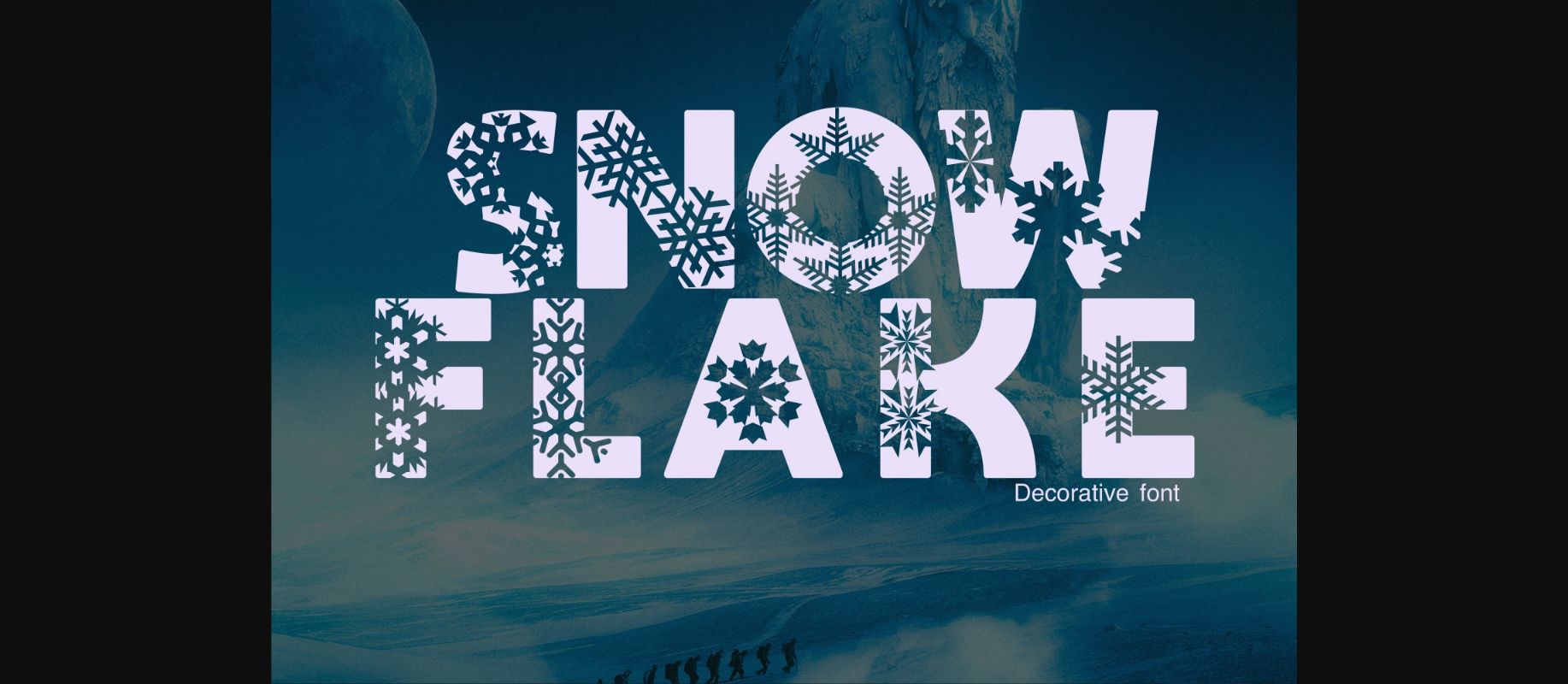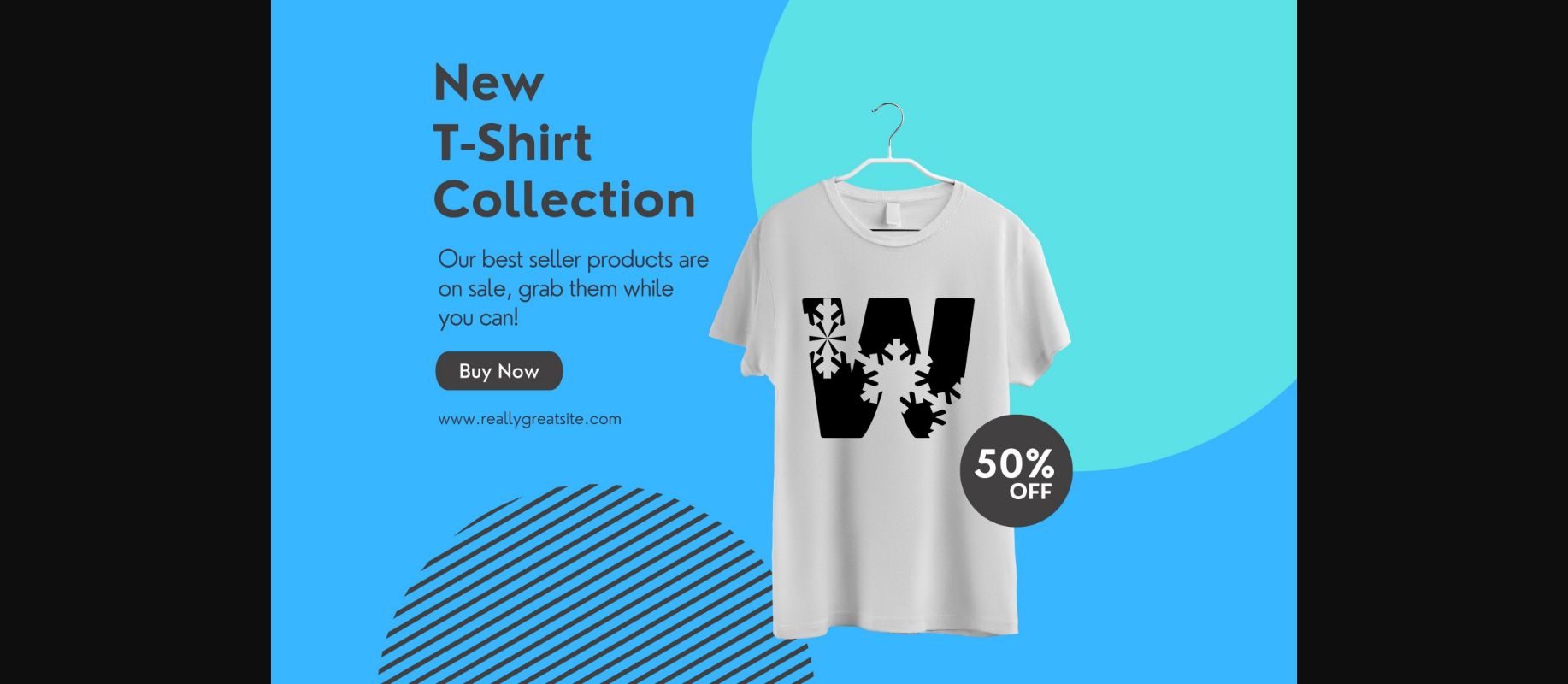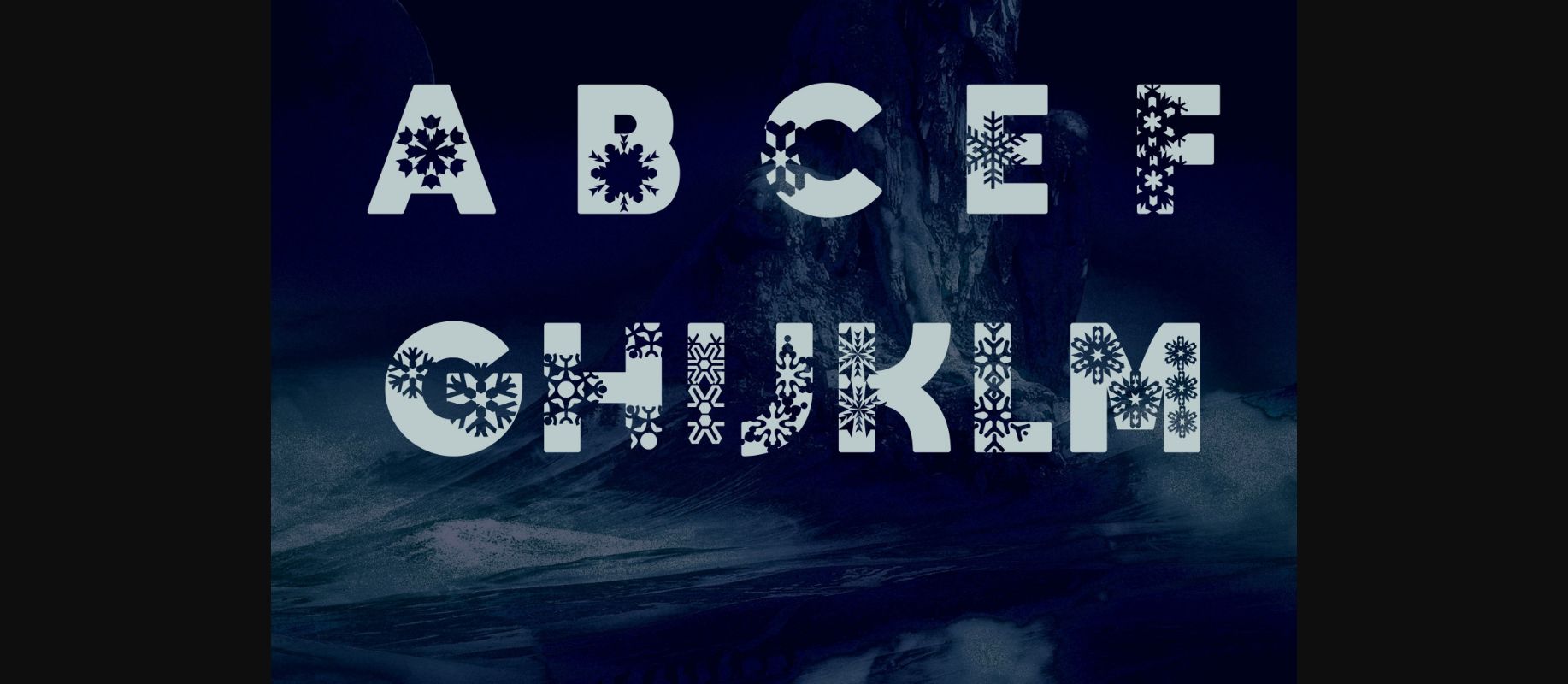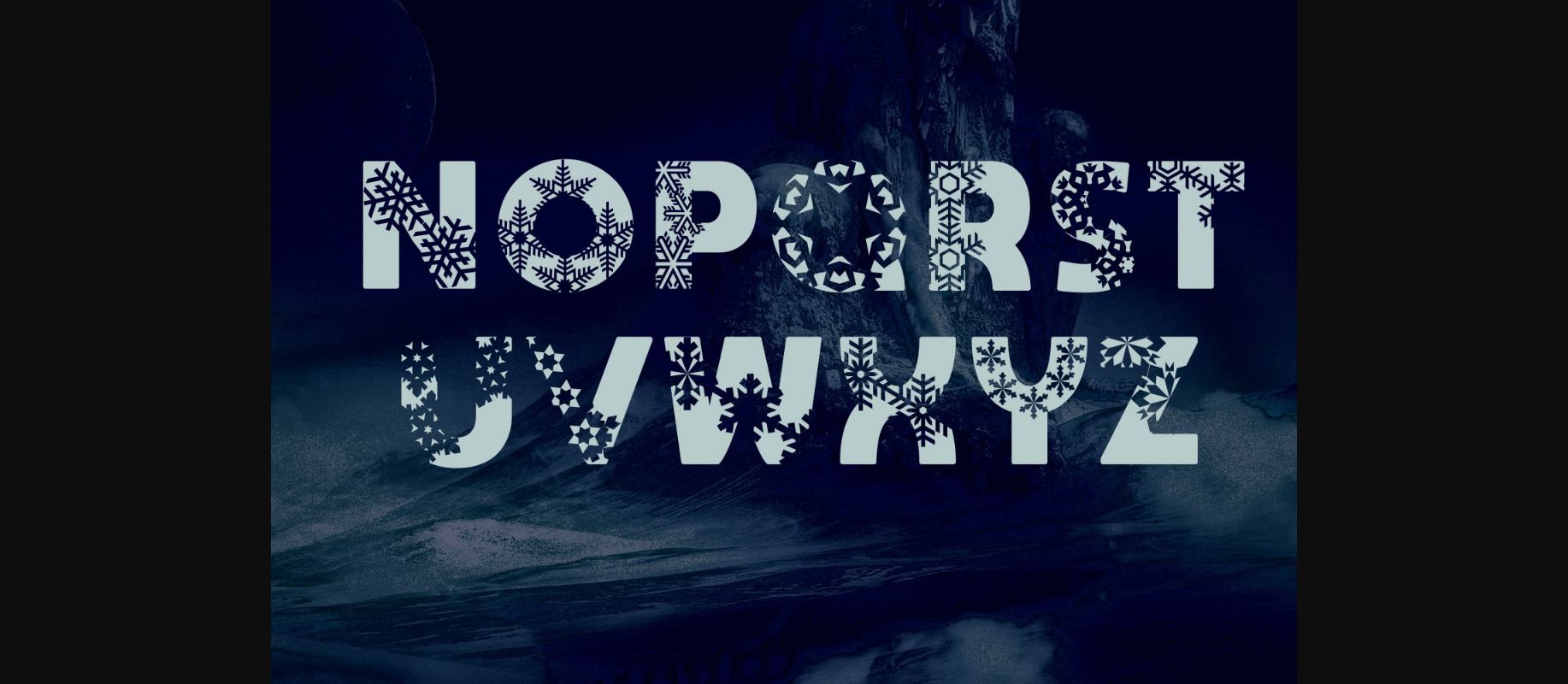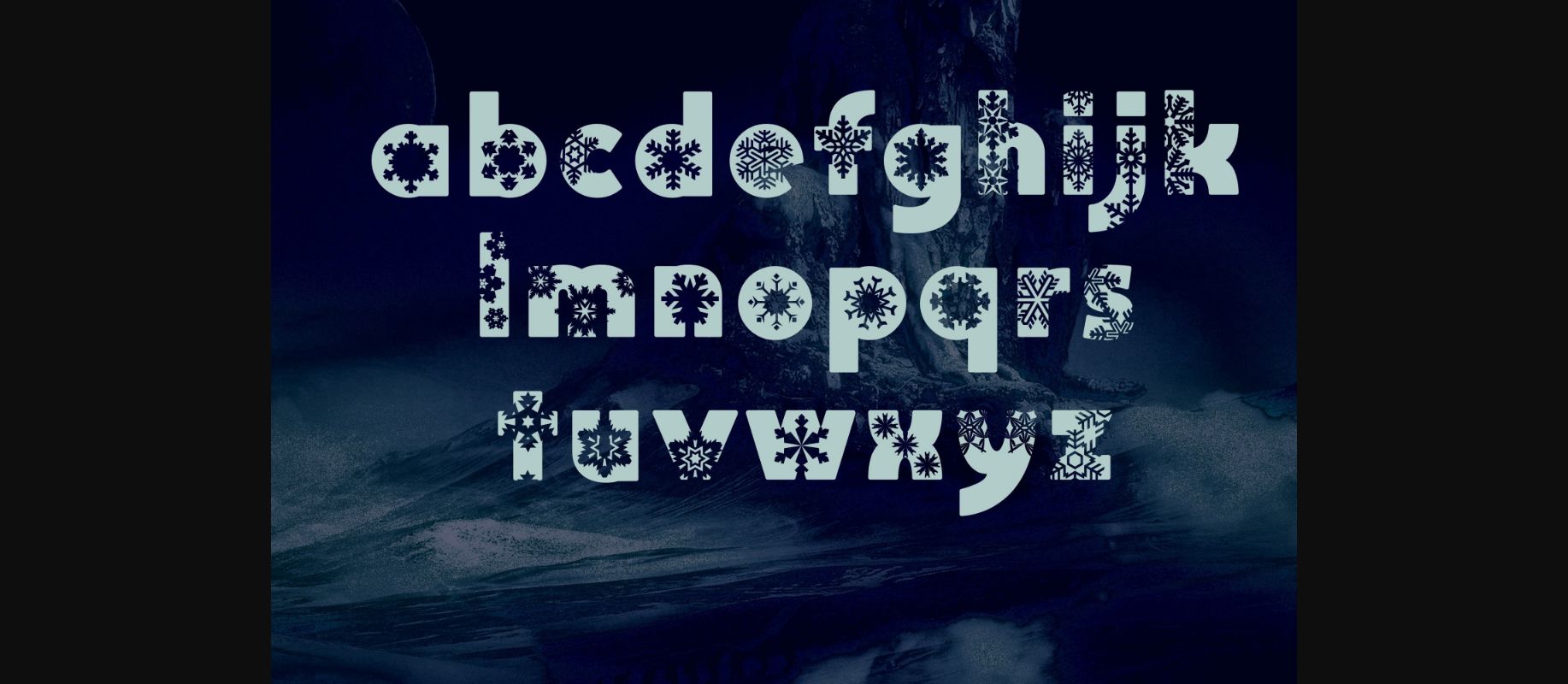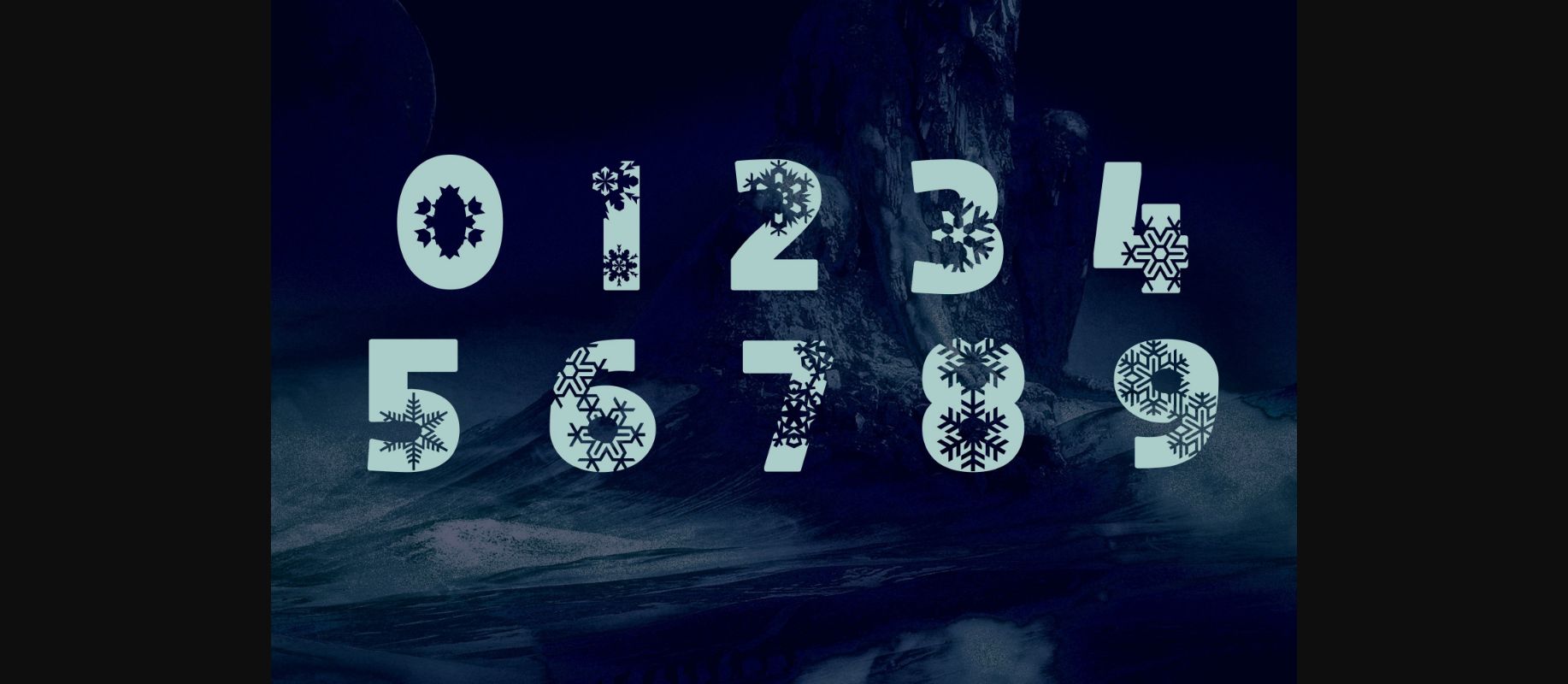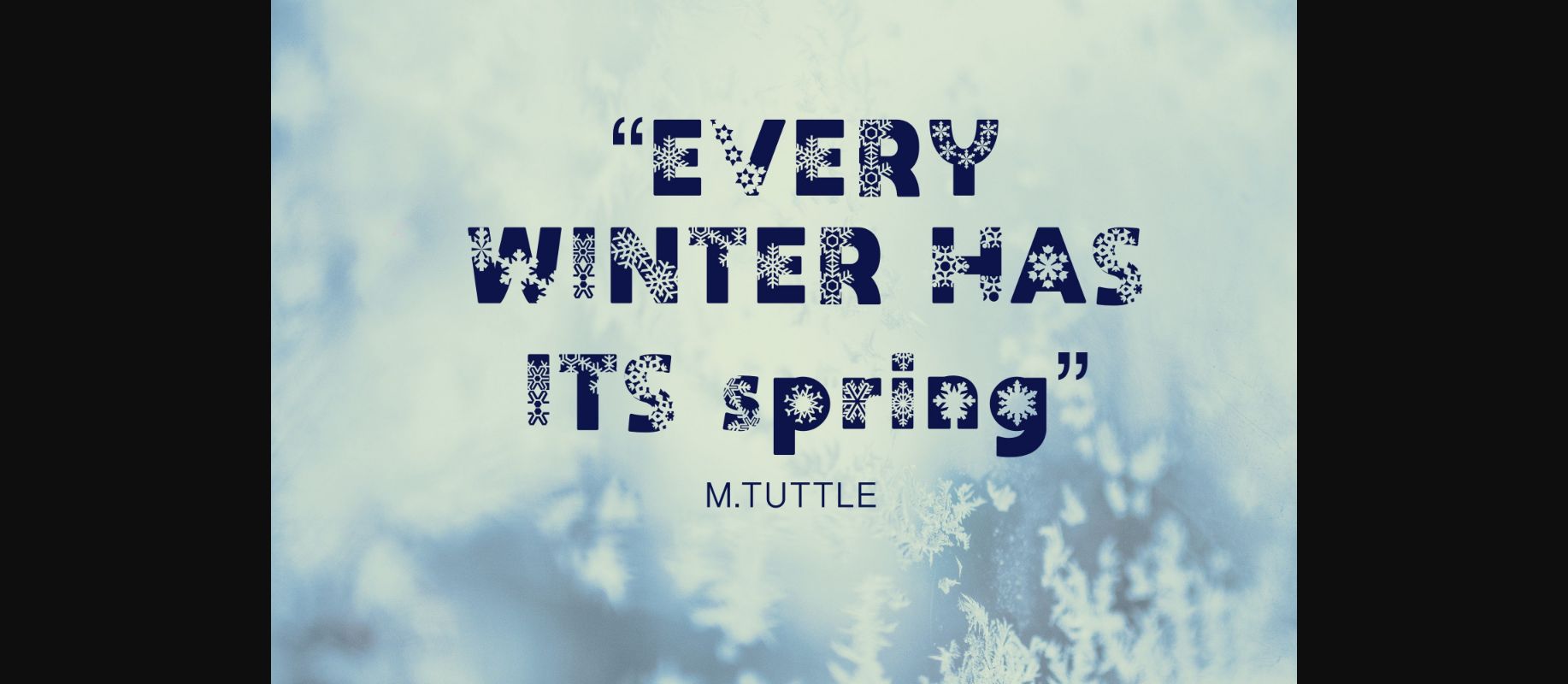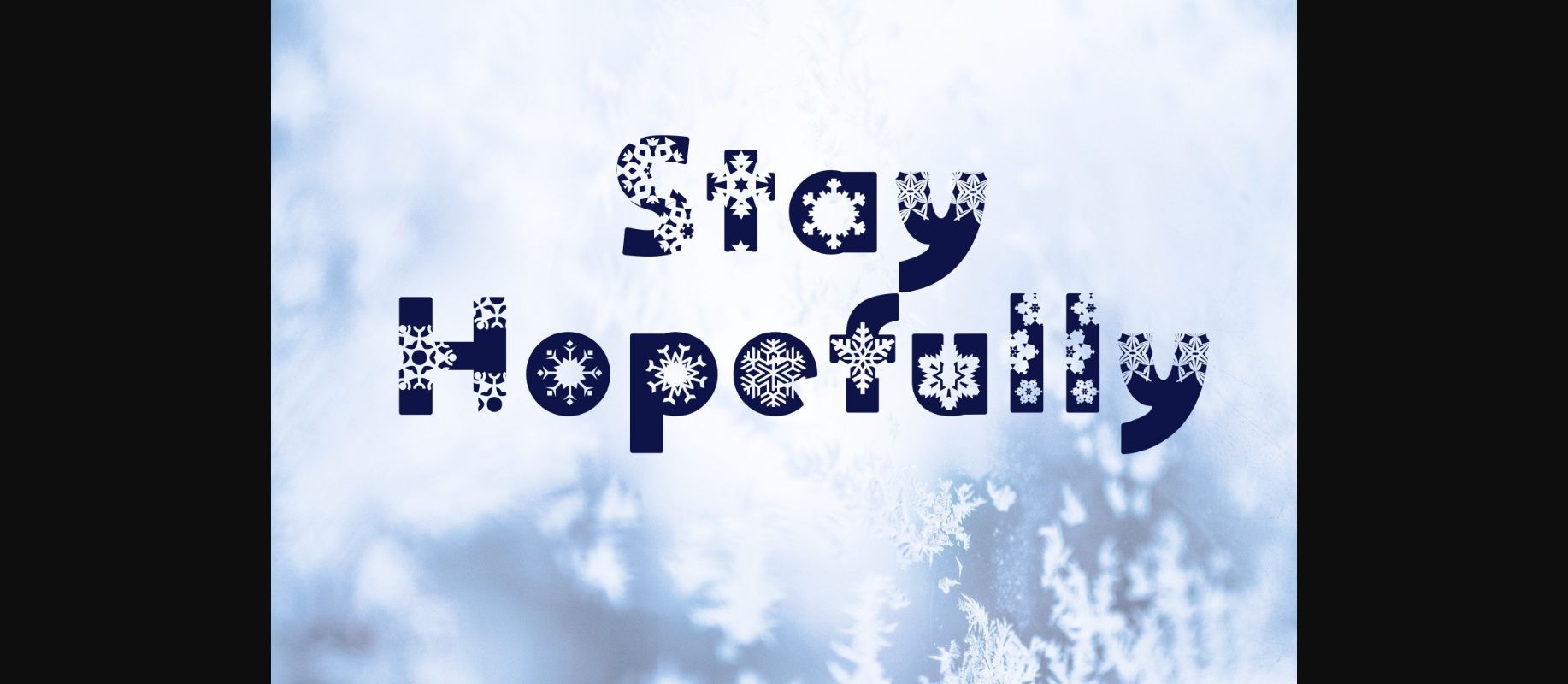
Snowflake Font
About Snowflake Font
Snowflake is a lovely decorative font. It’s sweet, adorable, and festive! The typeface is designed to provide a little easy and whimsical Christmas cheer to your life.